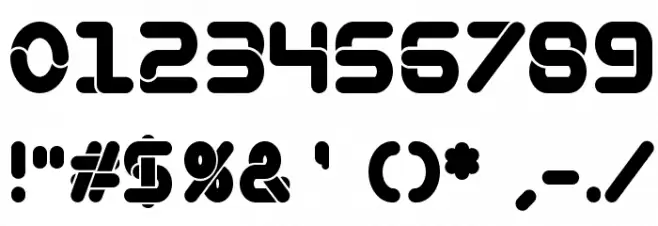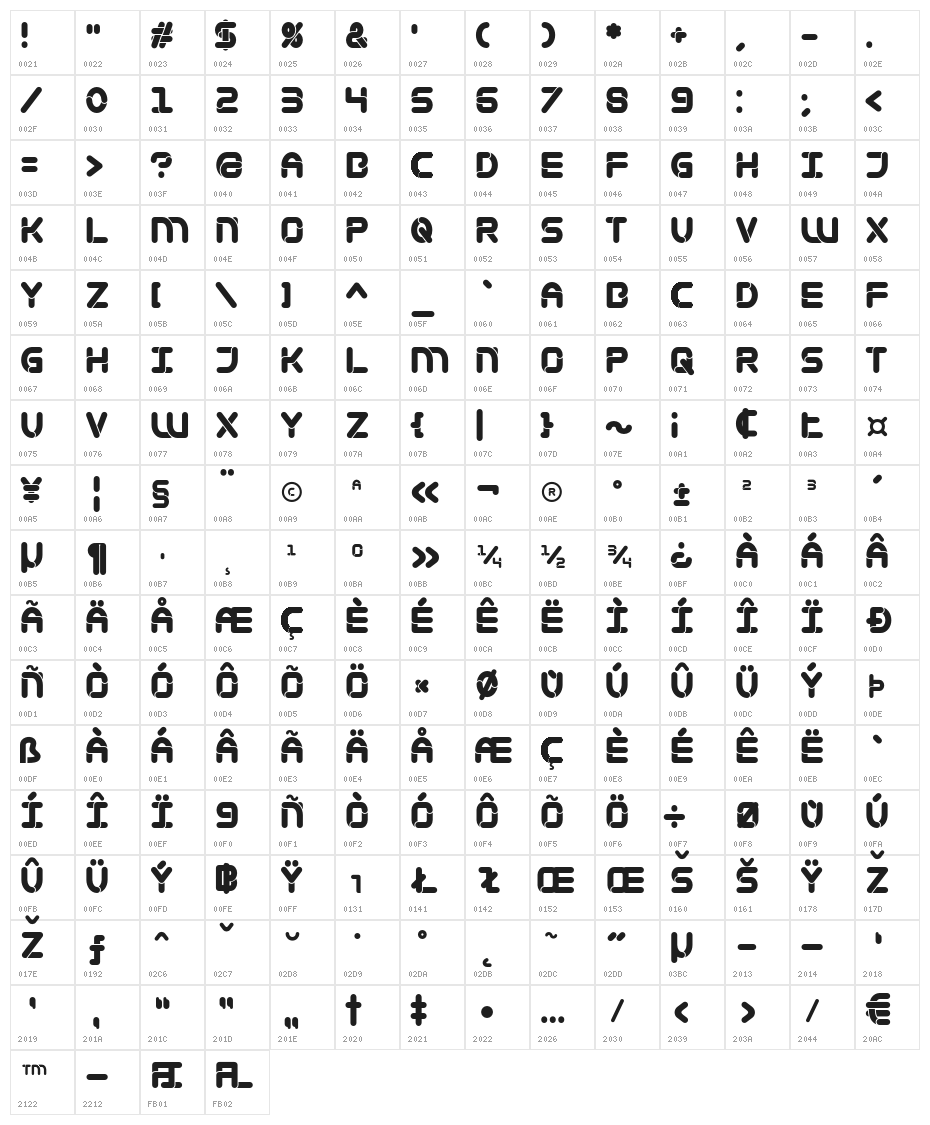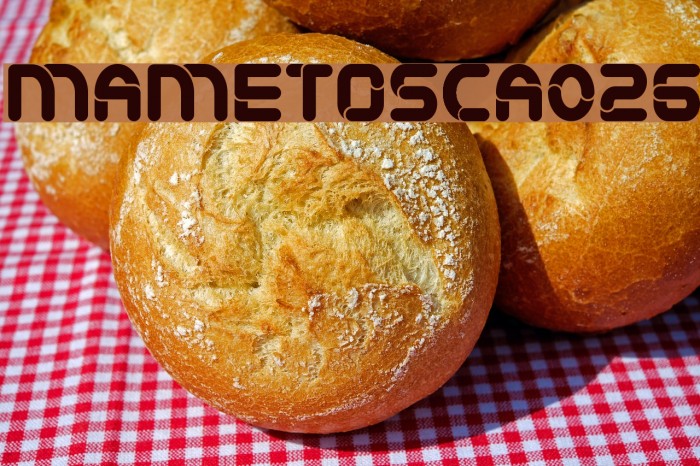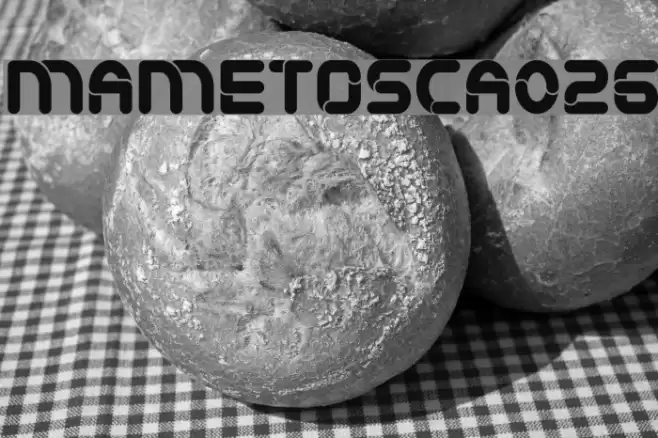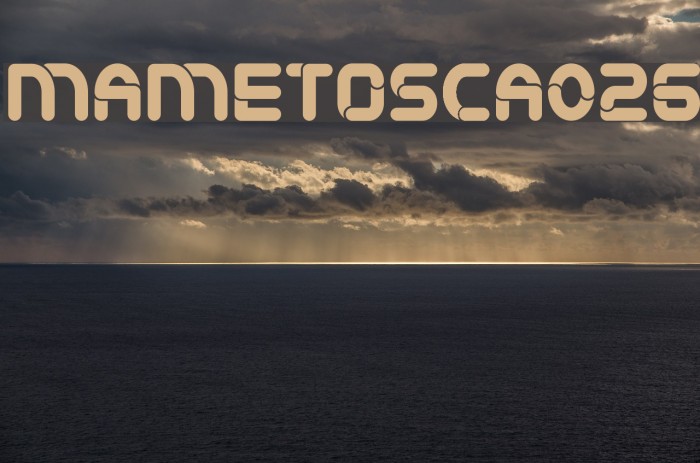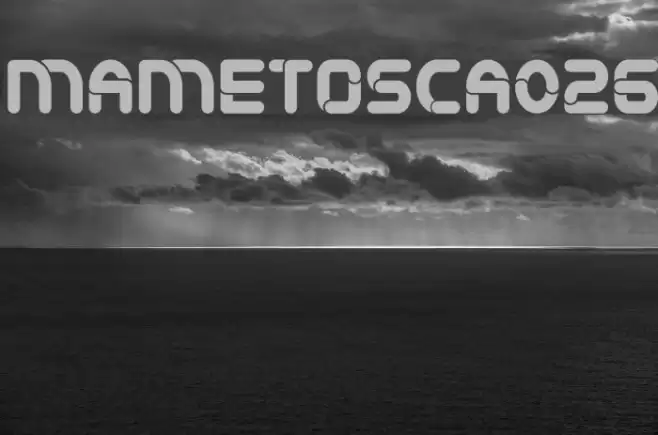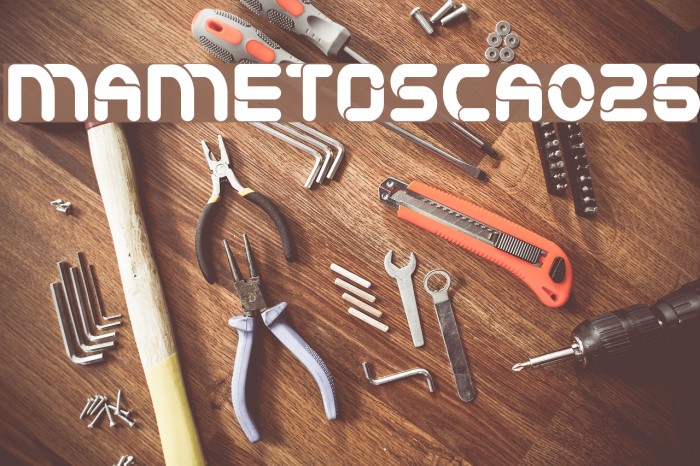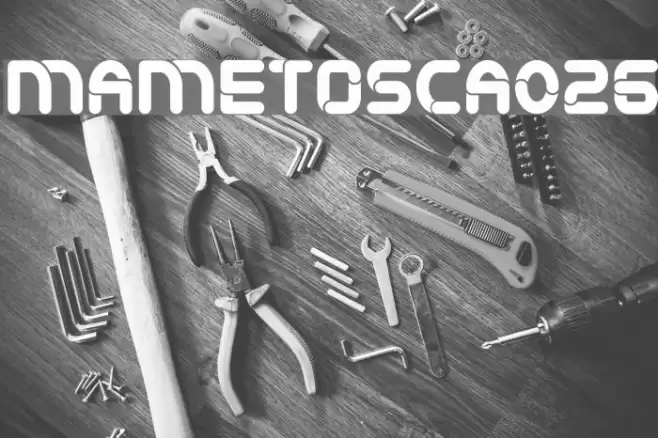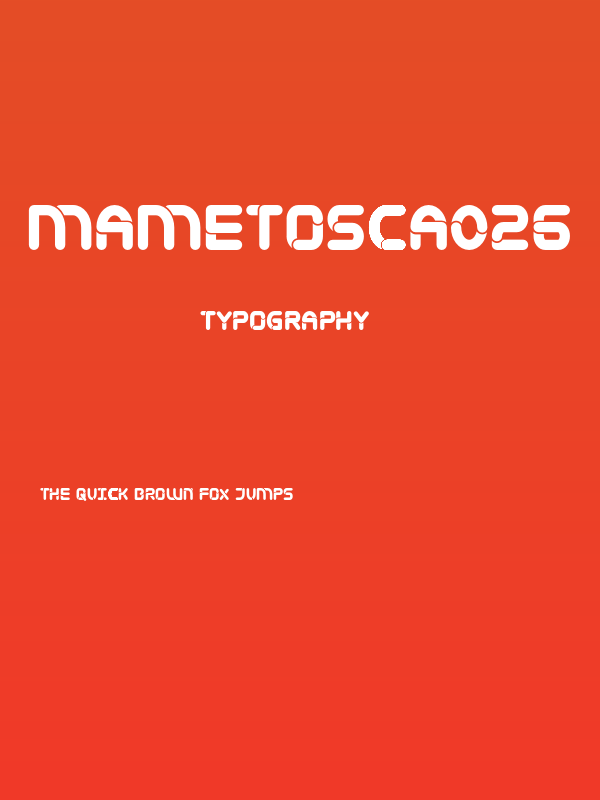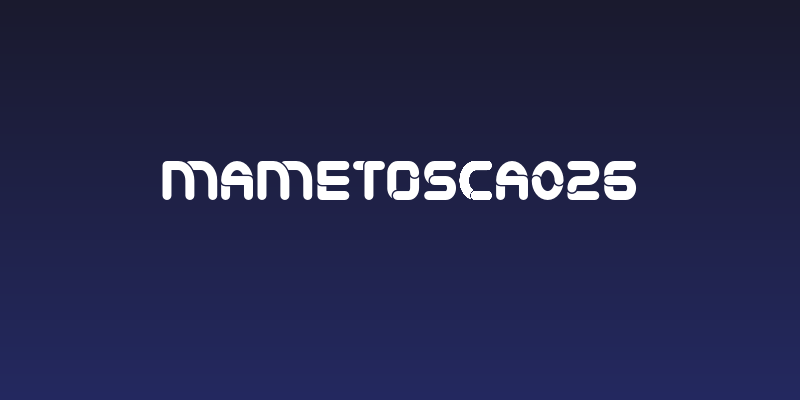
Mametosca026 Font
Mametosca026 Description
This font exhibits a modern and futuristic style with its bold, geometric shapes and rounded edges. The characters are designed with a unique cut-out effect, giving them a distinct and eye-catching appearance. The uppercase and lowercase letters maintain a consistent design, while the numerals and special characters complement the overall aesthetic. The font's bold weight and high contrast make it suitable for impactful designs, where readability and style are equally important. Its innovative design can add a contemporary touch to any project.
| Proposed Projects | Ideal for technology branding, futuristic posters, digital media, and modern advertising campaigns. |